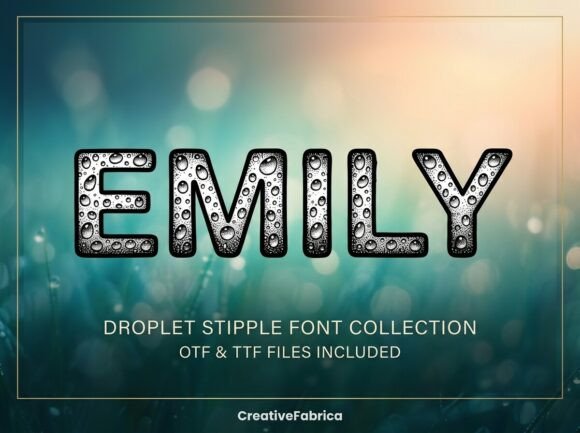
Discover the Refreshing Charm of Emily Font
I’ll never forget the morning I stumbled upon Emily Font while working on a branding project for a local florist. I had been searching for the perfect typeface to capture the serene and natural essence of her business, but everything I found felt either too generic or too over-the-top. That’s when Emily Font caught my eye – with its bold, rounded sans-serif letterforms and delicate 3D water droplets, it was as if the font was infused with the freshness of morning dew. ✨
A Refreshing Display Font for Your Designs
Emily Font is a stunning display typeface that embodies a “natural-and-serene” soul. Its heavy weight and tranquil, high-fidelity texture make it an ideal choice for designs that require a touch of elegance and sophistication. Whether you’re working on independent floral shop branding, organic skincare packaging, botanical garden identities, or high-impact social media headers, Emily Font is sure to make a statement.
An Honest Review of Emily Font
- ✨ Unique and refreshing design that adds a touch of serenity to any project
- ✅ Meticulously detailed 3D water droplets that mimic the look of morning dew
- ✅ Heavy weight and high-fidelity texture for a luxurious feel
- ✅ Perfect for designs that require a natural and elegant look
While Emily Font is an exceptional typeface, there are a few things to keep in mind: ⚠️ It may not be the best choice for body text or small font sizes, as the intricate details can become lost. Additionally, the font’s heavy weight may not be suitable for designs that require a more subtle look.
A Practical Guide to Using Emily Font
The Story Behind Emily Font
Emily Font was designed with the intention of capturing the serenity and natural beauty of the world around us. The designer’s inspiration came from the delicate water droplets that form on windowpanes on a dewy morning. With Emily Font, you can bring a touch of that serenity to your designs and add a unique flair to your branding, packaging, or social media headers.
Q: What is Emily Font best suited for?
A: Emily Font is perfect for designs that require a natural and elegant look, such as independent floral shop branding, organic skincare packaging, botanical garden identities, and high-impact social media headers.
Q: Can I use Emily Font for body text?
A: While Emily Font is an exceptional typeface, it may not be the best choice for body text or small font sizes, as the intricate details can become lost.
Q: Is Emily Font available in different weights?
A: Currently, Emily Font is available in a single heavy weight, but the designer may release additional weights in the future.